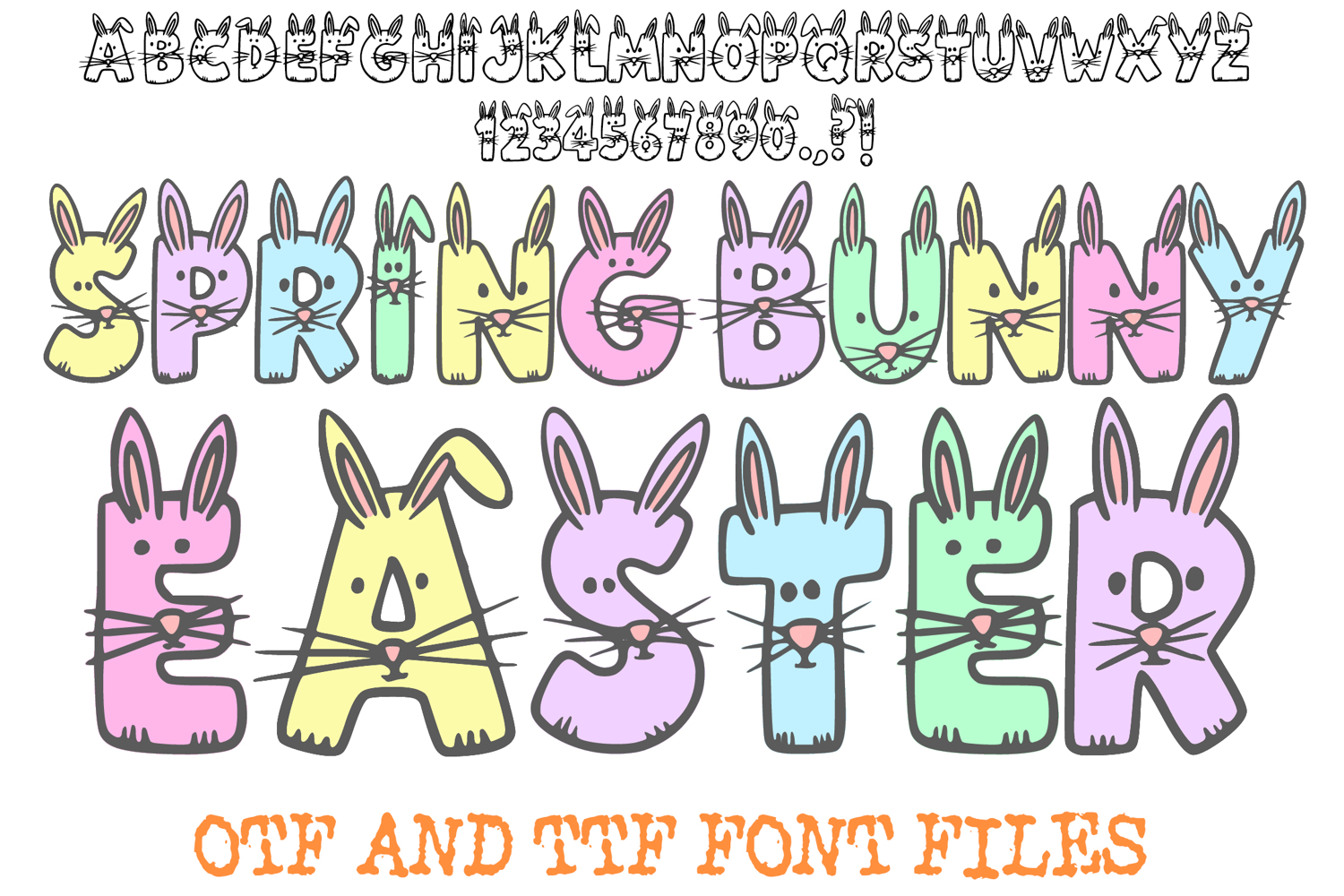
Spring Bunny Easter Font Letters Typography Rabbit Pet OTF
Get ready for the egg hunt with the Spring Bunny Easter Font! This whimsical, hand-drawn font is the perfect way to add a festive and playful personality to your seasonal projects. Every character in the set is uniquely styled to look like a bunny, featuring perky ears, delicate whiskers, and even tiny facial expressions on select letters.
The clean outline style makes this font incredibly versatile for crafters. It’s perfect for "color-your-own" activities, custom vinyl cutting, or simply adding a "kawaii" animal vibe to your digital layouts. Whether you are designing for a classroom, or a family celebration, this font is sure to make your message hop off the page!
Ideal For:
Easter Celebrations: Personalized Easter baskets, festive party invitations, and holiday cards.
Kids' Apparel: Cute T-shirts, baby onesies, and pajamas for spring photos.
Educational Materials: Fun classroom worksheets, bulletin boards, and student name tags.
Spring Decor: Nursery wall art, planner stickers, and festive shop banners.